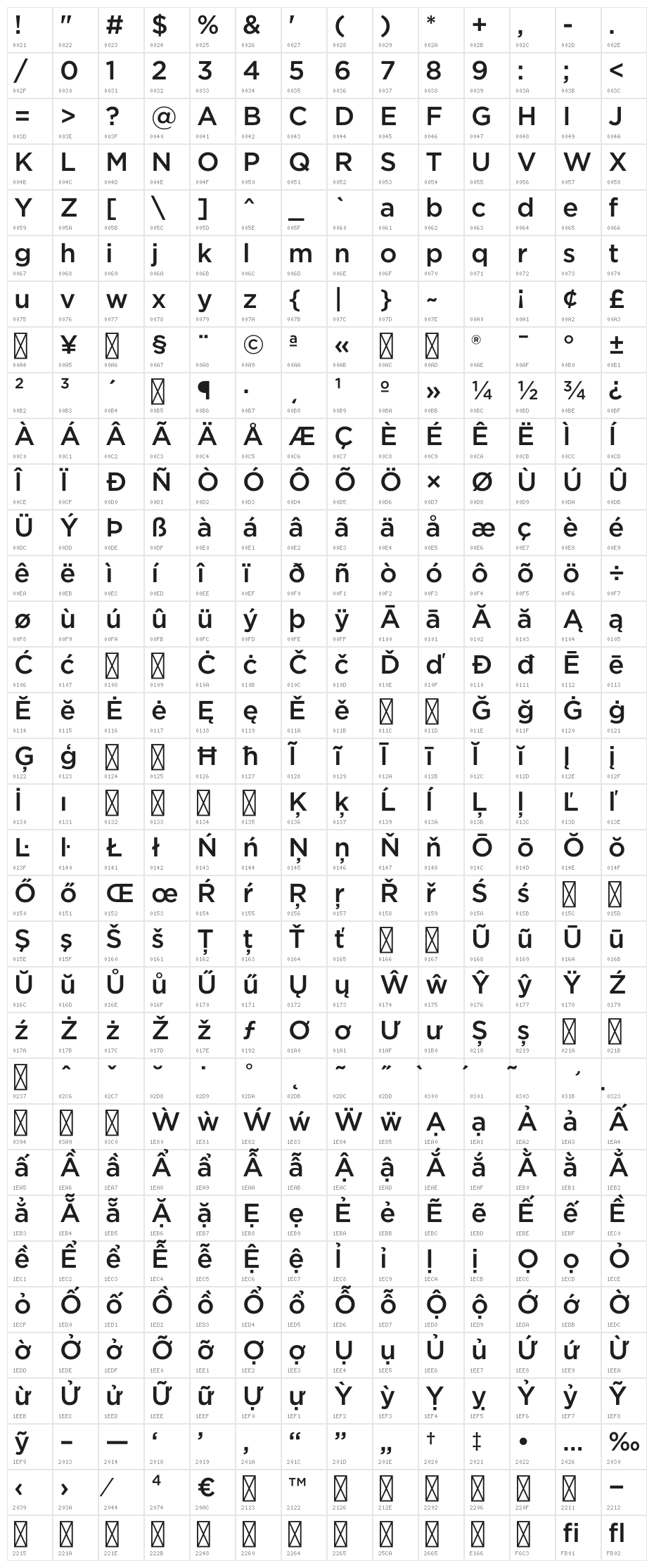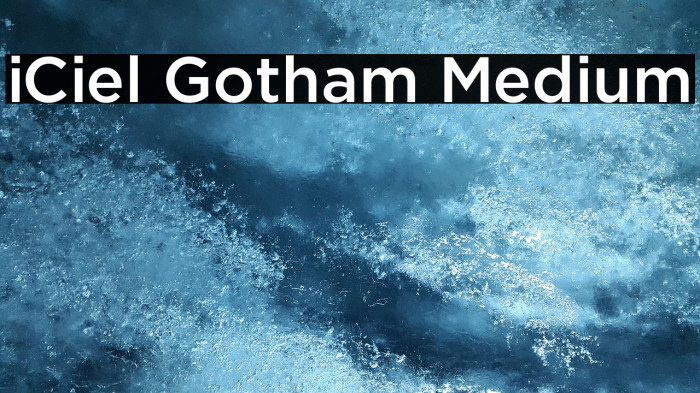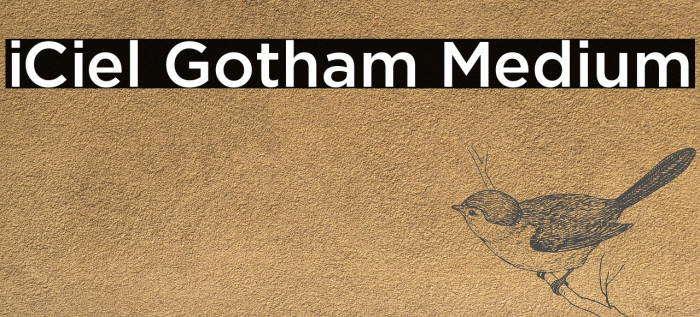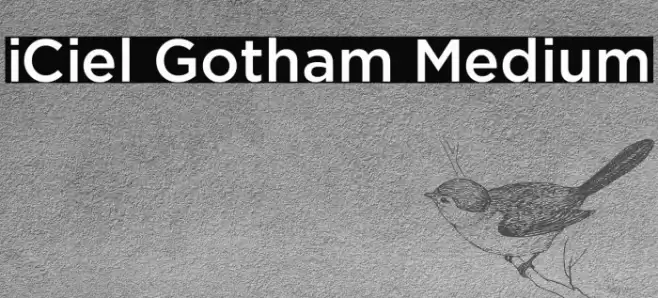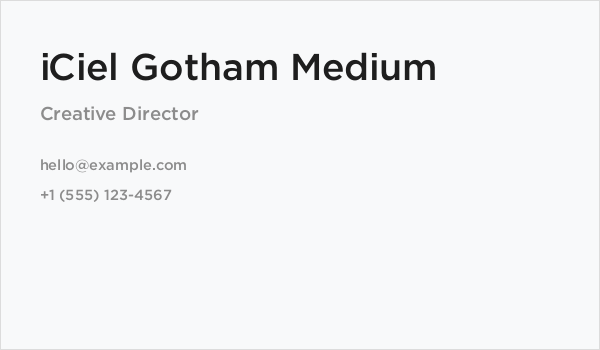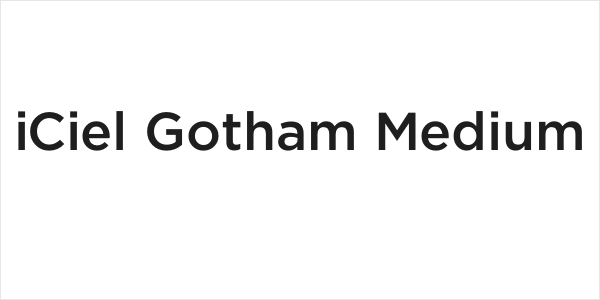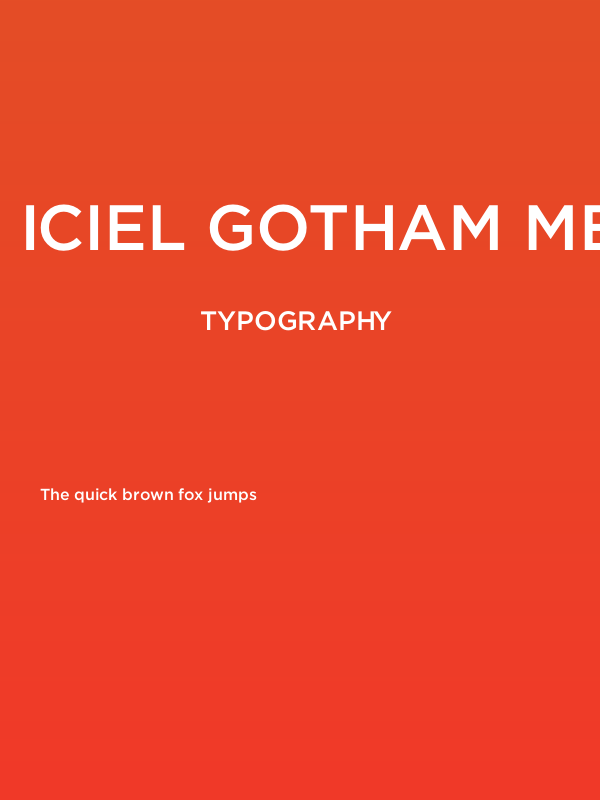
iCiel Gotham Medium Font
iCiel Gotham Medium Description
This font exhibits a clean and modern sans-serif style with geometric influences. The characters are well-proportioned, featuring uniform stroke widths that contribute to a balanced and harmonious appearance. The uppercase letters are bold and assertive, while the lowercase letters maintain a friendly and approachable feel. The numerals are clear and easy to read, making them suitable for various applications. The special characters are designed with precision, ensuring consistency across the entire typeface. This font is versatile, offering readability and aesthetic appeal in both digital and print mediums.